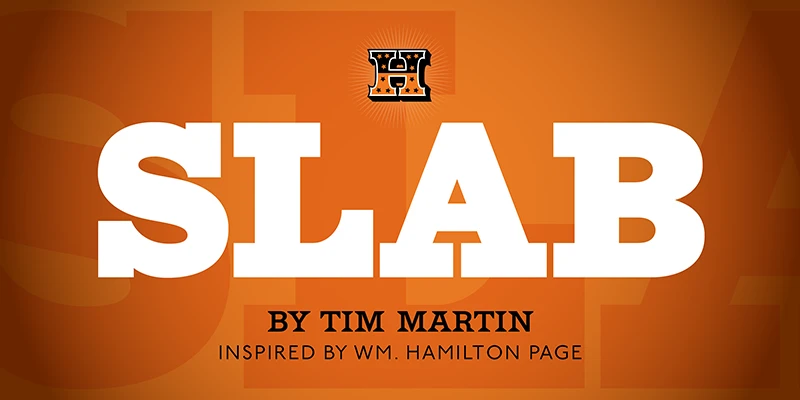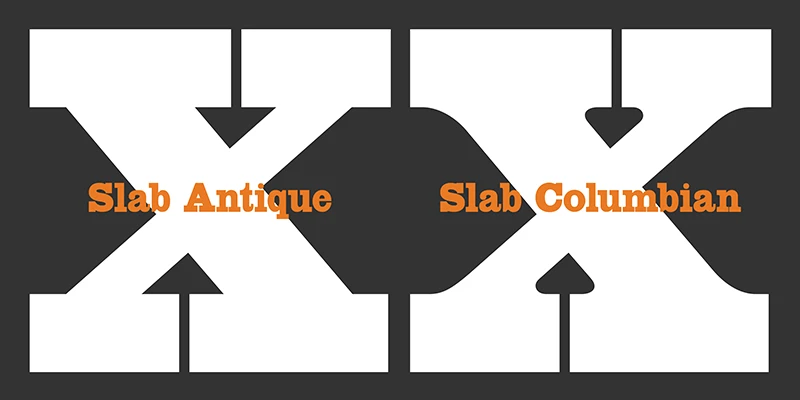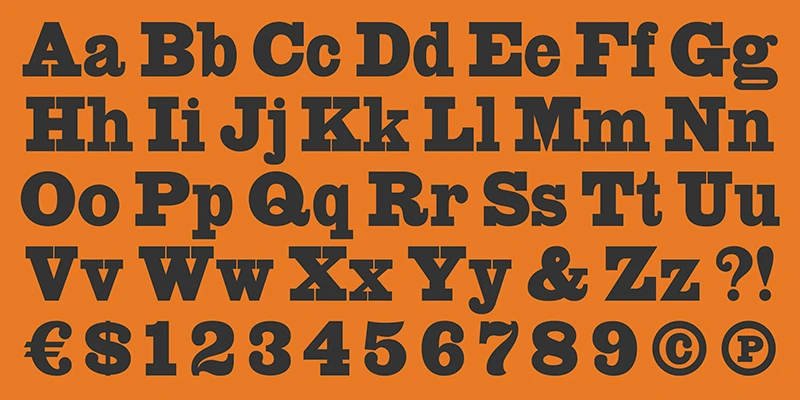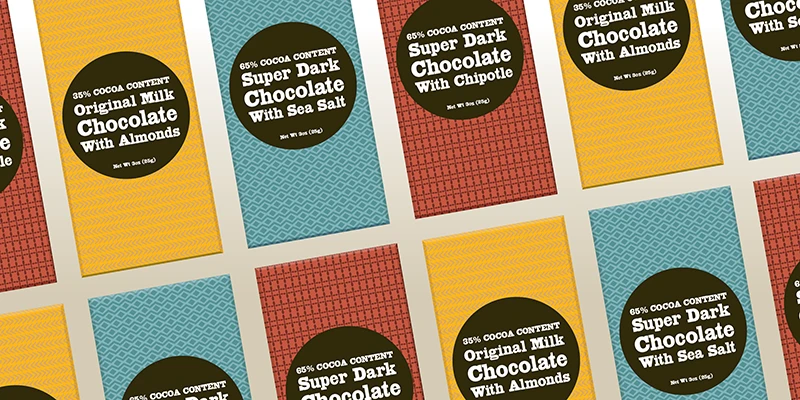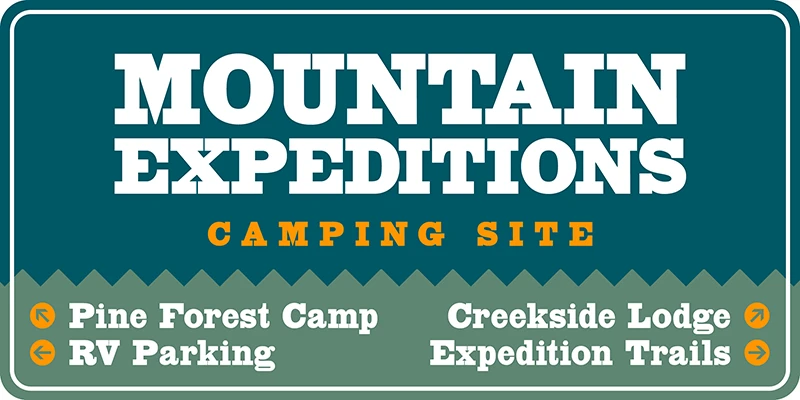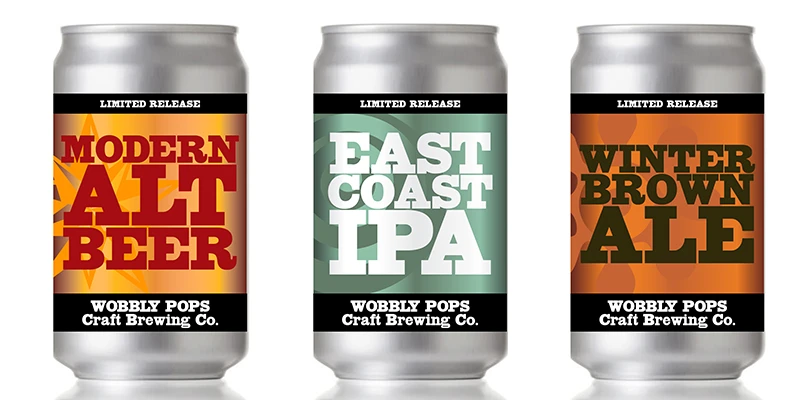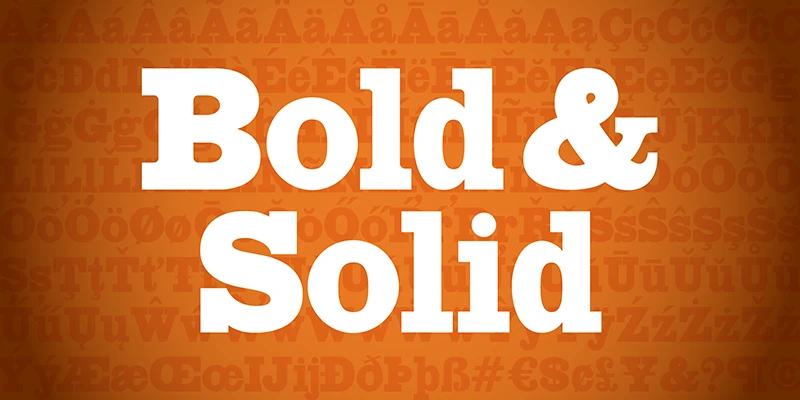
The HWT Slab family, comprising Slab Antique and Slab Columbian, embodies robust slab serif designs, reminiscent of Dutch’ chocoladeletters.’ Both fonts share traits such as low contrast, a high x-height, short descenders, and occasional rounded endings with a lowercase ‘j’ notch. The only difference you’ll actually find is in the serif structure. Designer Tim Martin meticulously sourced material from various manufacturers and supplemented it with additional characters, punctuation, and accents.
Slab Antique
Slab Columbian